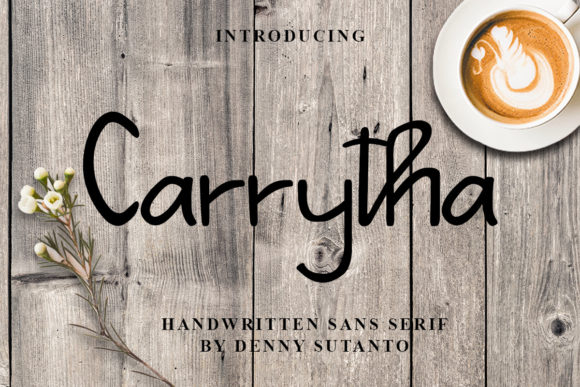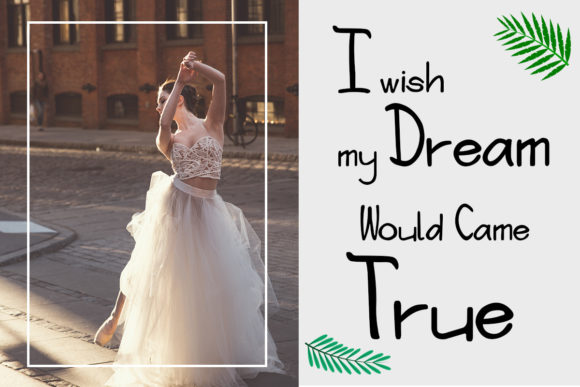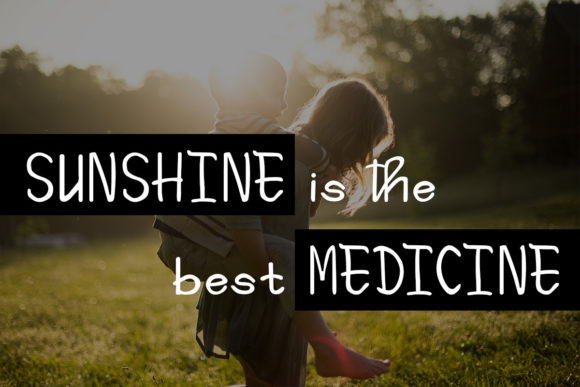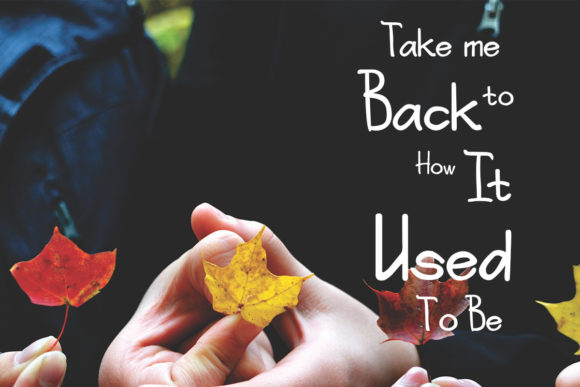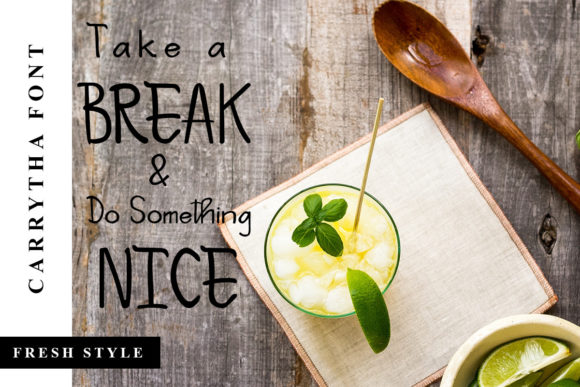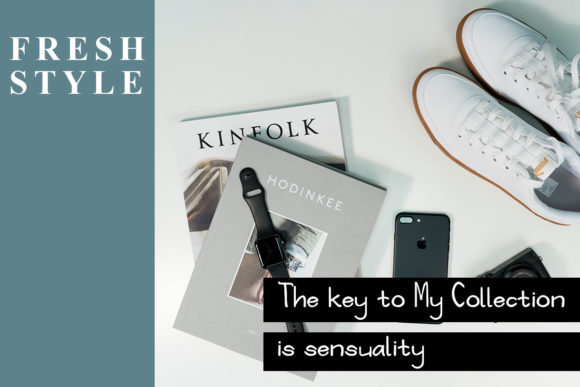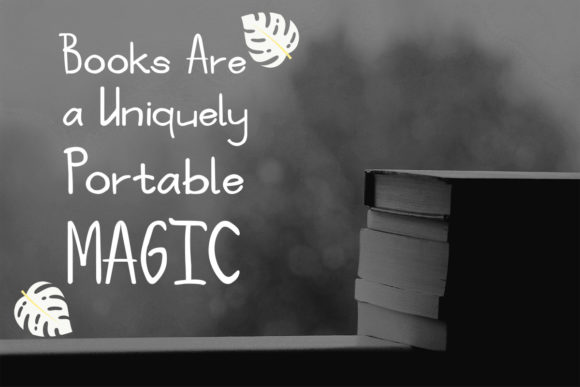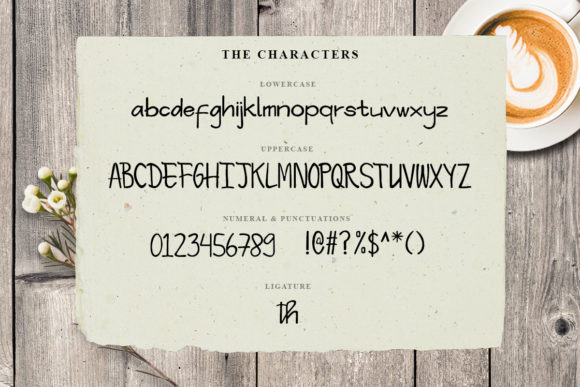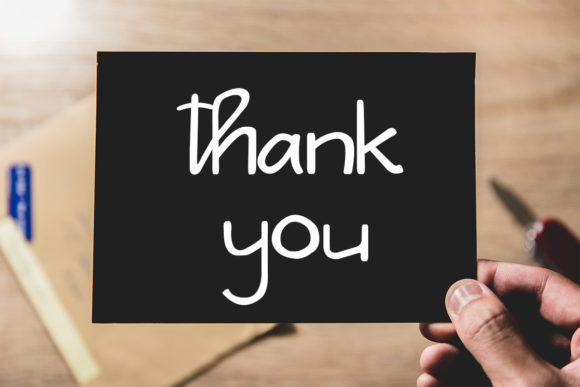
Carrytha Font
About Carrytha Font
Carrytha is a simple yet elegant handwritten font with a cool feel. Use it to turn any design project into a true standout!